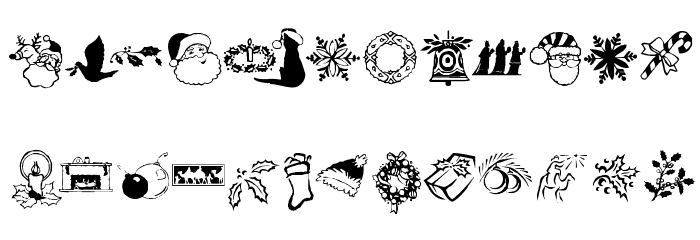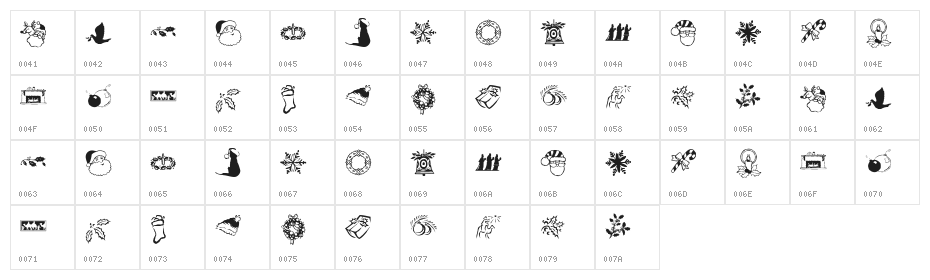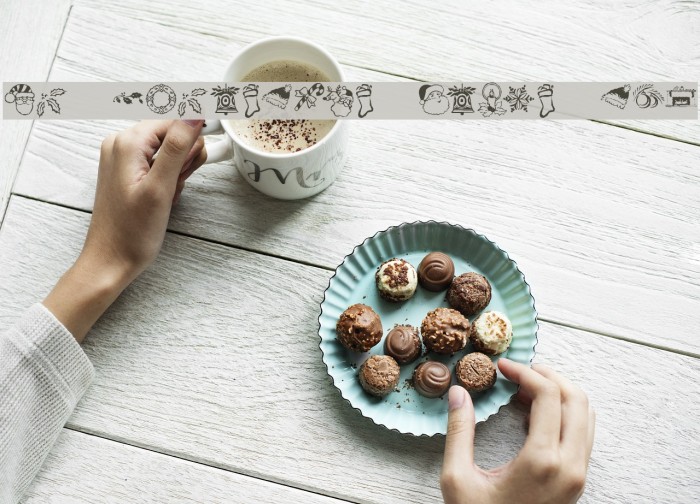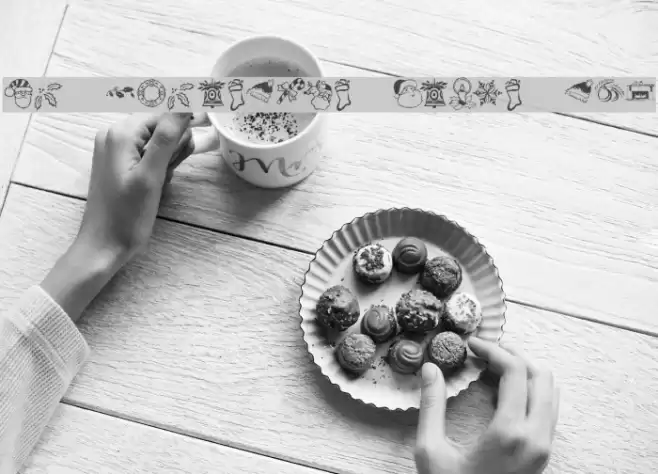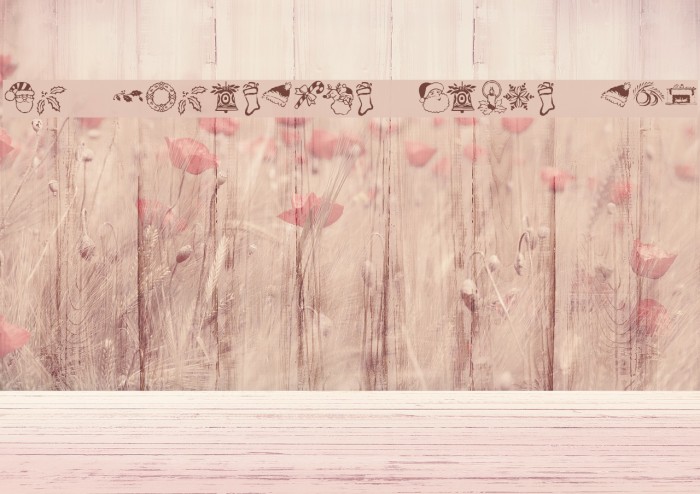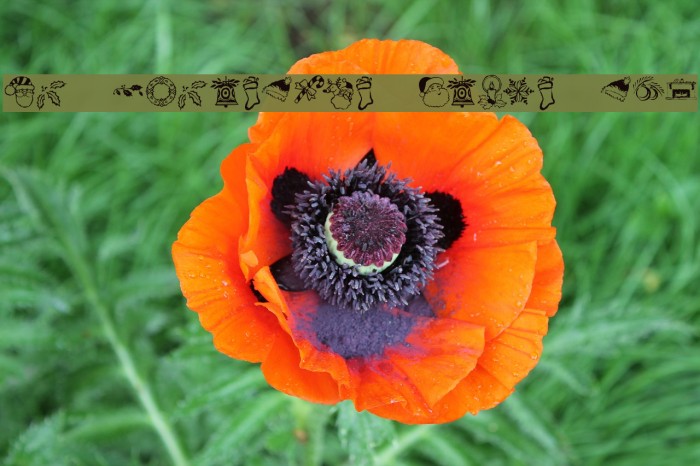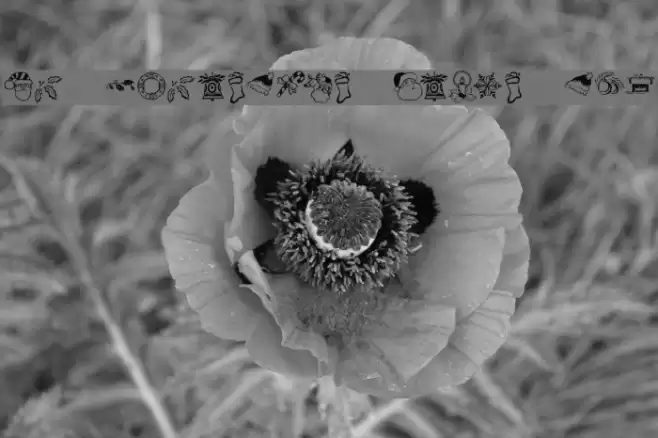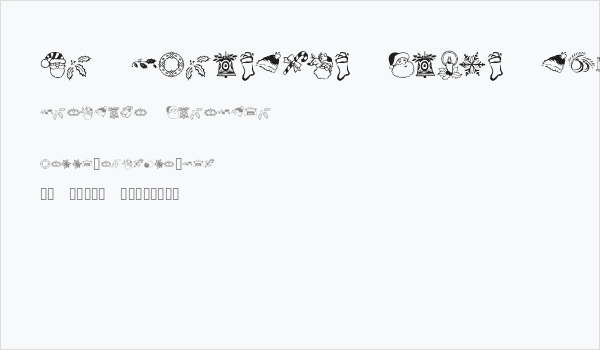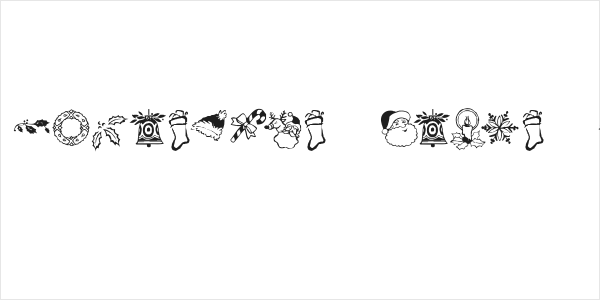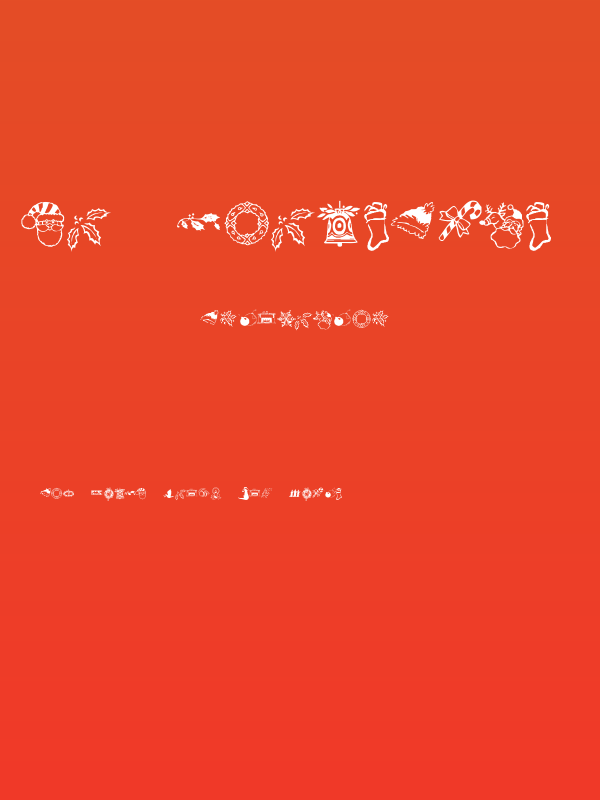
KR Christmas Dings Two Font
KR Christmas Dings Two Description
This collection features a variety of festive and whimsical Christmas-themed dingbats. Each character is a unique illustration, capturing the essence of the holiday season with elements such as Santa Claus, reindeer, snowflakes, wreaths, and more. These designs are perfect for adding a touch of holiday spirit to any project. The illustrations are detailed and playful, making them suitable for both professional and personal use. The style is consistent throughout, with a focus on traditional Christmas imagery that evokes warmth and joy.
| Use Case | Logos, Decorations, Crafts |
| Proposed Projects | Ideal for holiday cards, festive invitations, seasonal decorations, and Christmas-themed crafts. |